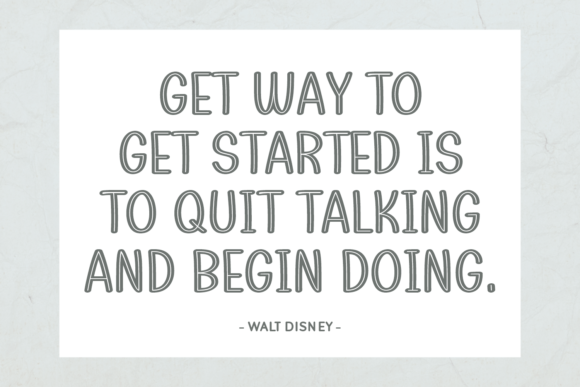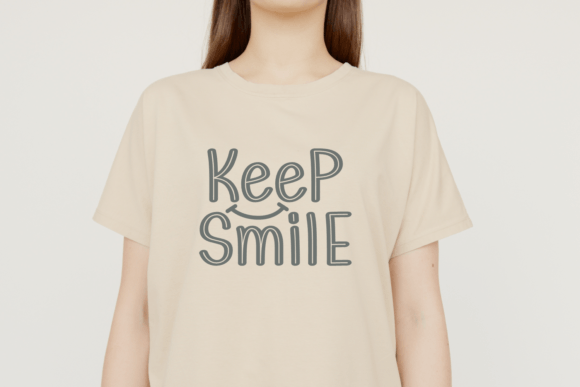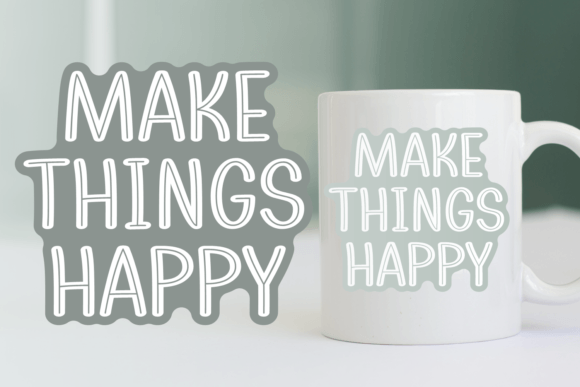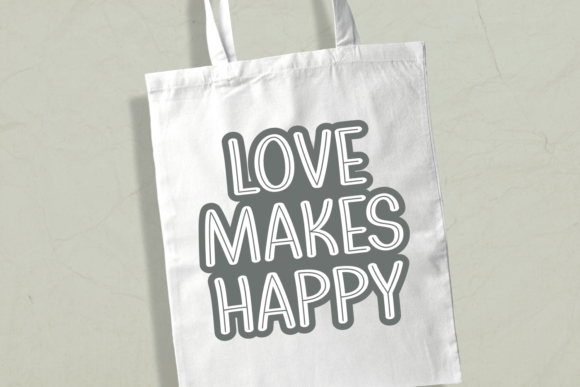
Introduction to Maysta Font
Have you ever found yourself rummaging through a dusty old box of childhood memories, only to stumble upon a hand-drawn invitation to your best friend’s birthday party? The intricate details, the colorful illustrations, and the joyful energy that radiates from the page transport you back to a time when life was simple and carefree. That’s exactly the kind of magic that the Maysta Font brings to your creative projects.
As a designer, you’re always on the lookout for the perfect font to capture the essence of your message. Maysta Font is more than just a typeface – it’s a design resource that exudes a vibrant and playful energy, making it the perfect addition to any project that needs a touch of whimsy. With its high-quality design and transparent background, you can easily incorporate it into your designs without any hassle.
Key Features of Maysta Font
- Unique characteristics include a modern, minimalist aesthetic and clean typography
Honest Review: Maysta Font
As a designer, I’m always on the lookout for high-quality design resources to elevate my creative projects. The Maysta Font caught my eye, and I decided to give it a try.
- ✨ Unique Character Set: Maysta Font boasts an extensive character set that includes a wide range of languages and symbols. This makes it an excellent choice for designers working on projects that require multilingual support.
- ✨ Customizable: The font is highly customizable, allowing designers to adjust the font size, weight, and style to suit their project’s needs.
- ⚠️ Limited Styles: Maysta Font is available in a limited number of styles, which may not be ideal for designers who require a wide range of font styles for their projects.
- ⚠️ Not Ideal for Complex Text: Due to its unique character set and design, Maysta Font may not be the best choice for complex text-heavy projects.
Overall, I’m impressed with the Maysta Font’s potential as a design resource. While it may have some limitations, its unique character set and customizable features make it an excellent choice for designers working on creative projects that require a high level of flexibility.
The Maysta Font is suitable for various creative projects, including graphic design, digital art, and even typography-based art. Its high quality and versatility make it an excellent design resource for designers and artists alike.
Yes, the Maysta Font is designed to work well with transparent backgrounds. The font’s transparent background allows for seamless integration with your design, making it perfect for creative projects that require a high level of design flexibility.